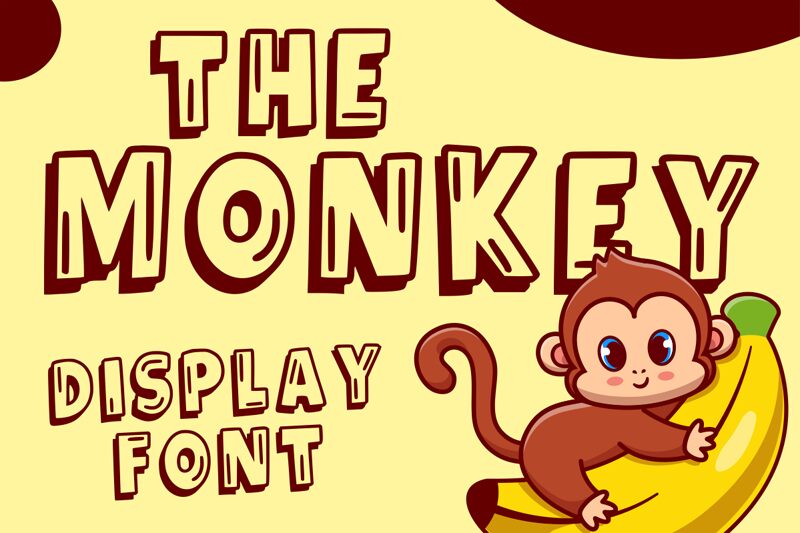
The Monkey Regular
Introducing The Monkey font, designed by Novita Maria. With its 3D cartoon-style and bold weight, this display font is ideal for creating playful titles and logos with a unique twist. The Monkey is perfect for projects like children's books, video games or comics.